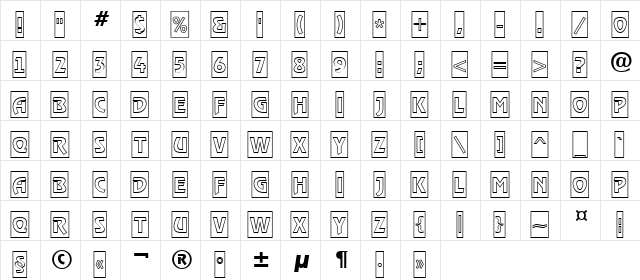
a_RewinderTitulCmOtl Regular Font Preview
a_RewinderTitulCmOtl Regular
Design Context for a_RewinderTitulCmOtl Typeface
a_RewinderTitulCmOtl is a composed and adaptable typeface that performs quietly and consistently across a wide range of design contexts.